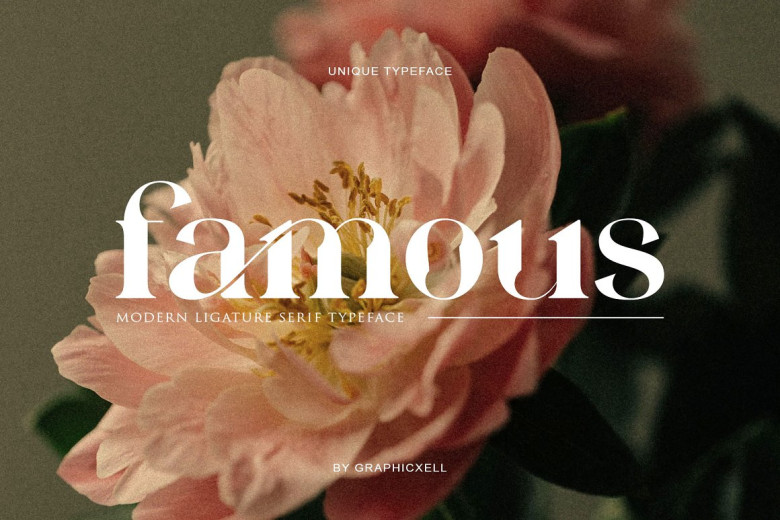
Famous Ligature Font
Famous Ligature Serif font, inspired by minimalist design, is perfect for creating templates, brochures and videos as well as designing advertising branding logos, invitations layout design elegant craft beauty design projects etc.
Famous Ligature Serif Font